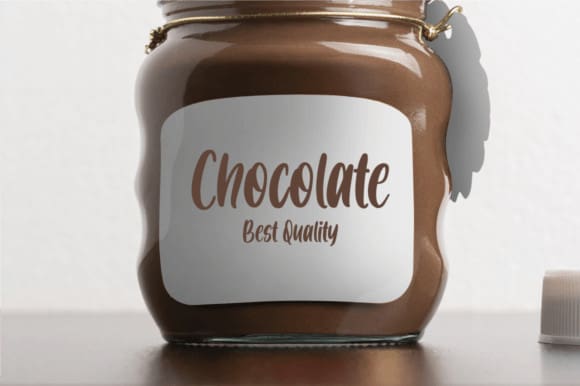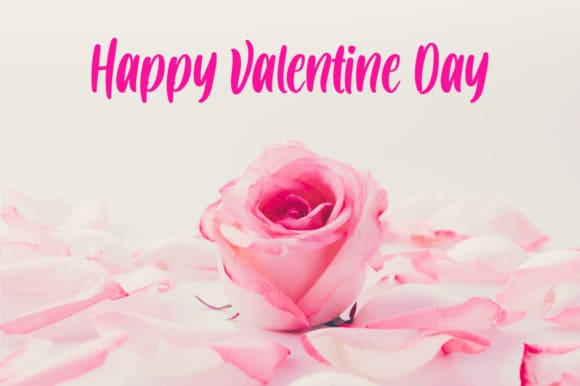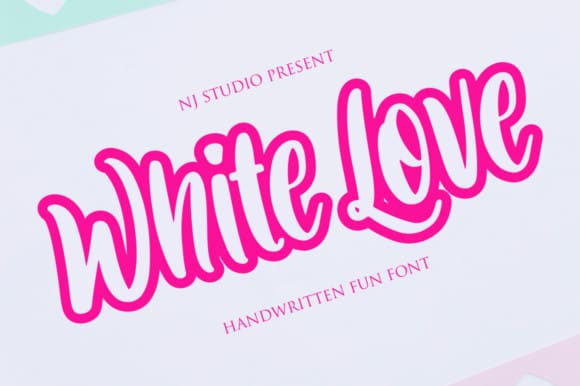
White Love Font
White Love Font is a lovely script font is a delightful and enchanting work of art that captures the heart with its graceful and flowing design. Its soft curves and gentle strokes create an aura of romance and whimsy, evoking a sense of beauty and elegance. This exquisite font adds a touch of sweetness and charm to any project.